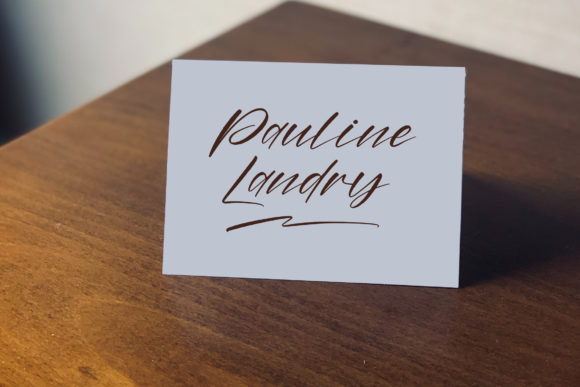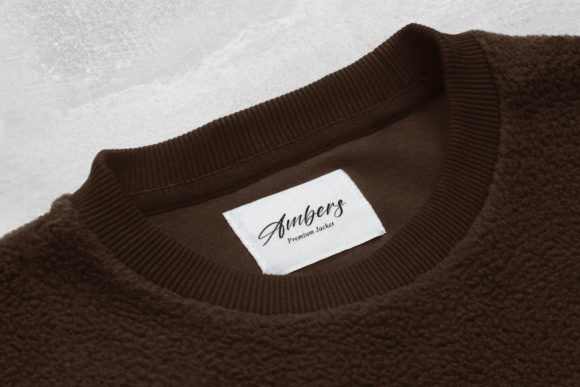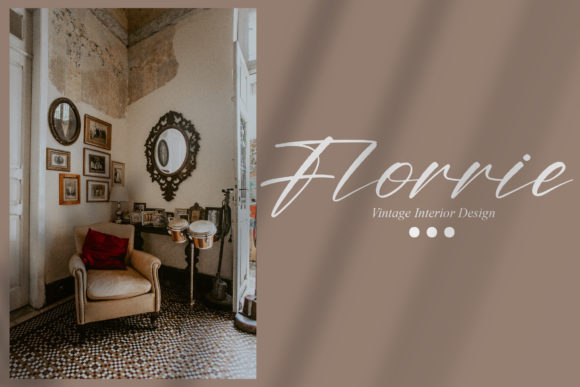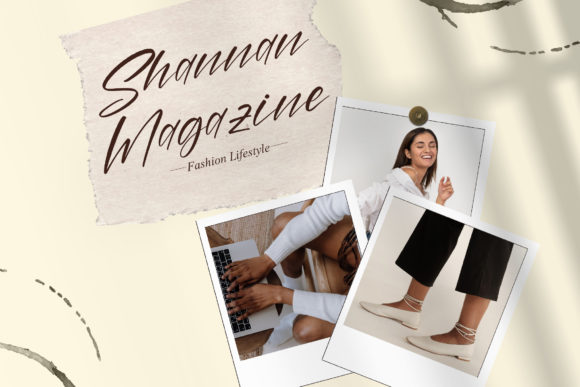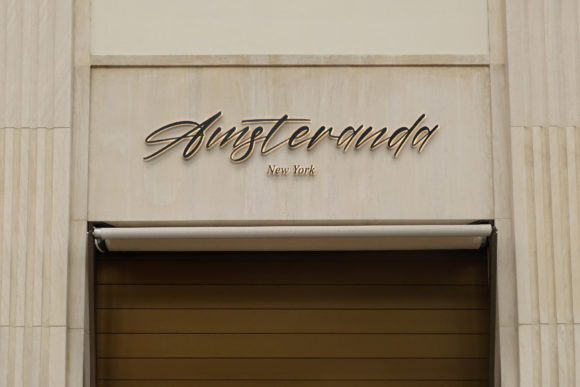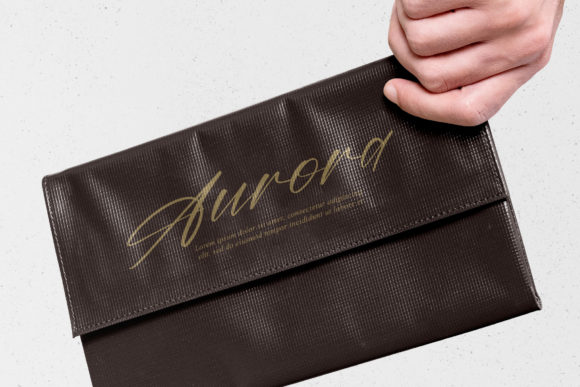
Introducing Amstera Balika: The Epitome of Elegance in Script Fonts
In the realm of typography, few fonts manage to convey the essence of sophistication and elegance as effectively as Amstera Balika. This chic, refined script font has been making waves in the design community, and for good reason. Its stylish alternates and ligatures make it the perfect match for any project that demands a touch of class and refinement. Whether you’re a designer looking for the perfect font to elevate your branding, a crafter seeking to add a personal touch to your DIY projects, or simply a typography enthusiast, Amstera Balika is sure to captivate.
The Design Philosophy Behind Amstera Balika
Amstera Balika’s design is rooted in the desire to create a font that exudes elegance and sophistication. Every glyph, every swash, and every ligature has been carefully crafted to ensure that the font is not only beautiful but also highly versatile. The inclusion of stylish alternates and ligatures means that you can customize your text to fit the aesthetic of your project perfectly. Whether you’re working on a luxury brand’s logo, a wedding invitation, or a personal craft project, Amstera Balika offers the flexibility to make your design truly unique.
PUA Encoding: Accessibility and Ease of Use
One of the standout features of Amstera Balika is its PUA (Private Use Area) encoding. This means that all glyphs and swashes are easily accessible, allowing designers and crafters to experiment with different styles without the hassle of navigating complex character maps. With PUA encoding, you can access all the additional features of the font, including swashes, alternates, and ligatures, directly from your design software. This not only streamlines the design process but also opens up a world of creative possibilities.
Applications of Amstera Balika
The versatility of Amstera Balika makes it suitable for a wide range of applications. Here are just a few examples:
- Branding and Logo Design: Use Amstera Balika to create a luxurious and memorable brand identity. Its elegant script can add a touch of sophistication to any logo, setting your brand apart from the competition.
- Wedding and Event Stationery: Create beautiful wedding invitations, place cards, and event programs with Amstera Balika. Its refined appearance is perfect for formal events and can help set the tone for a memorable occasion.
- Packaging Design: Elevate your product packaging with Amstera Balika. Whether you’re designing labels for gourmet foods, cosmetics, or luxury goods, this font can add a touch of elegance and class.
- DIY Projects: Crafters can use Amstera Balika to add a personal touch to their projects. From journaling and scrapbooking to crafting custom signs and banners, this font can help you create unique and beautiful pieces.
Why Choose Amstera Balika?
With so many fonts available, why choose Amstera Balika? The answer lies in its unique blend of elegance, versatility, and ease of use. Here are a few reasons why designers and crafters are falling in love with this font:
- Unique Style: Amstera Balika offers a distinctive style that can help your designs stand out. Its elegant script and beautiful swashes are sure to leave a lasting impression.
- Highly Versatile: Whether you’re working on a digital project or a print design, Amstera Balika can adapt to any style or theme. Its range of alternates and ligatures ensures that you can customize your text to fit your project’s aesthetic.
- Easy to Use: Thanks to its PUA encoding, Amstera Balika is incredibly easy to use, even for those who are new to design. You can access all the font’s features directly from your design software, making the design process smooth and efficient.
| Author | Afterpaper |
Amstera Balika is more than just a script font; it’s a tool for designers and crafters to create stunning, sophisticated designs. Its elegant appearance, combined with its versatility and ease of use, makes it an excellent choice for a wide range of projects. Whether you’re looking to elevate your branding, create beautiful stationery, or add a personal touch to your DIY projects, Amstera Balika is sure to exceed your expectations. With this font, you can bring a touch of elegance and sophistication to your designs, making them truly unforgettable.